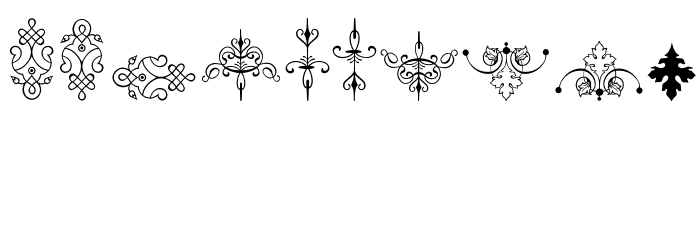
SoftOrnamentsEleven Font
SoftOrnamentsEleven Description
A collection of highly decorative and intricate ornamental glyphs featuring flourishes, swirls, floral motifs, and symmetrical designs. The set includes both solid and outlined elements, with a variety of shapes suitable for borders, dividers, and embellishments.
Ornamental dingbat set with intricate flourishes and decorative motifs from Uncategorized fonts.
- Proposed Projects: Wedding invitations, certificates, vintage-themed posters, book covers, decorative borders, branding accents.
- Overall Style: Vintage, Decorative
- Use Case: Borders, Dividers, Decorative elements